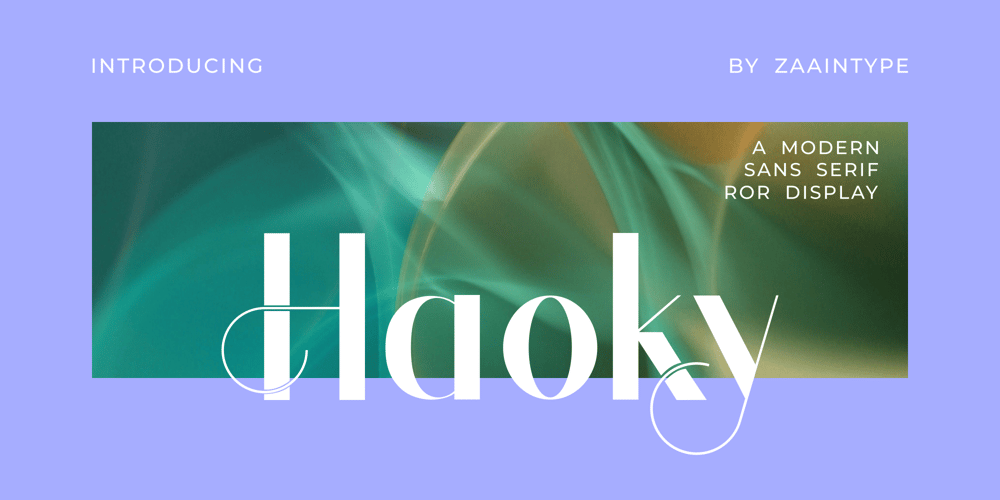
Haoky Font Family was designed by Ju Naen and published by Zaain Type. Haoky contains 2 styles and family package options. Haoky is a modern sans serif font available in two styles: Regular, clean and professional, and Oblique, adding a dynamic and bold touch. Its minimalistic and proportional design makes Haoky perfect for a wide range of design needs, from branding to digital media. With both styles, Haoky offers flexibility to create stylish, readable, and impactful visuals.With Regular for a formal look and Oblique for a more energetic vibe, Haoky is the ideal choice for creative projects